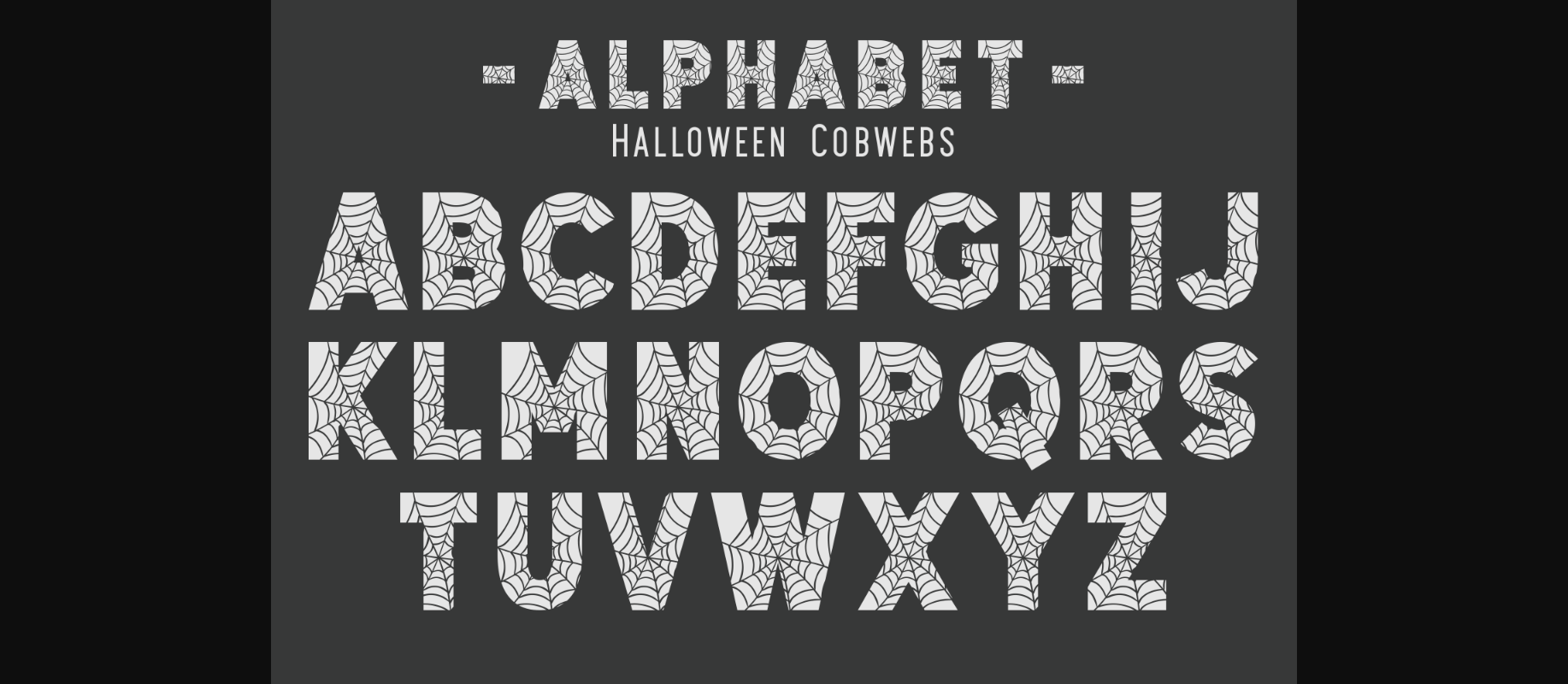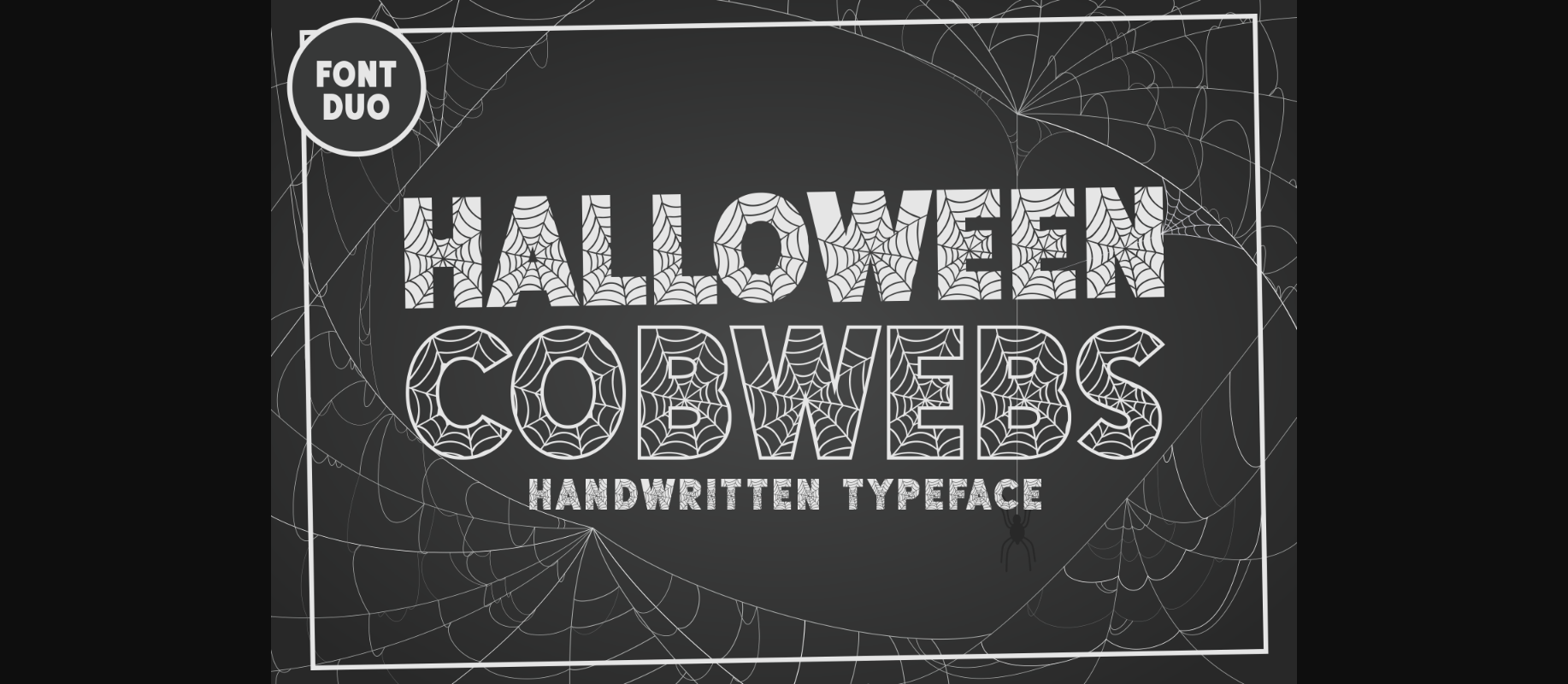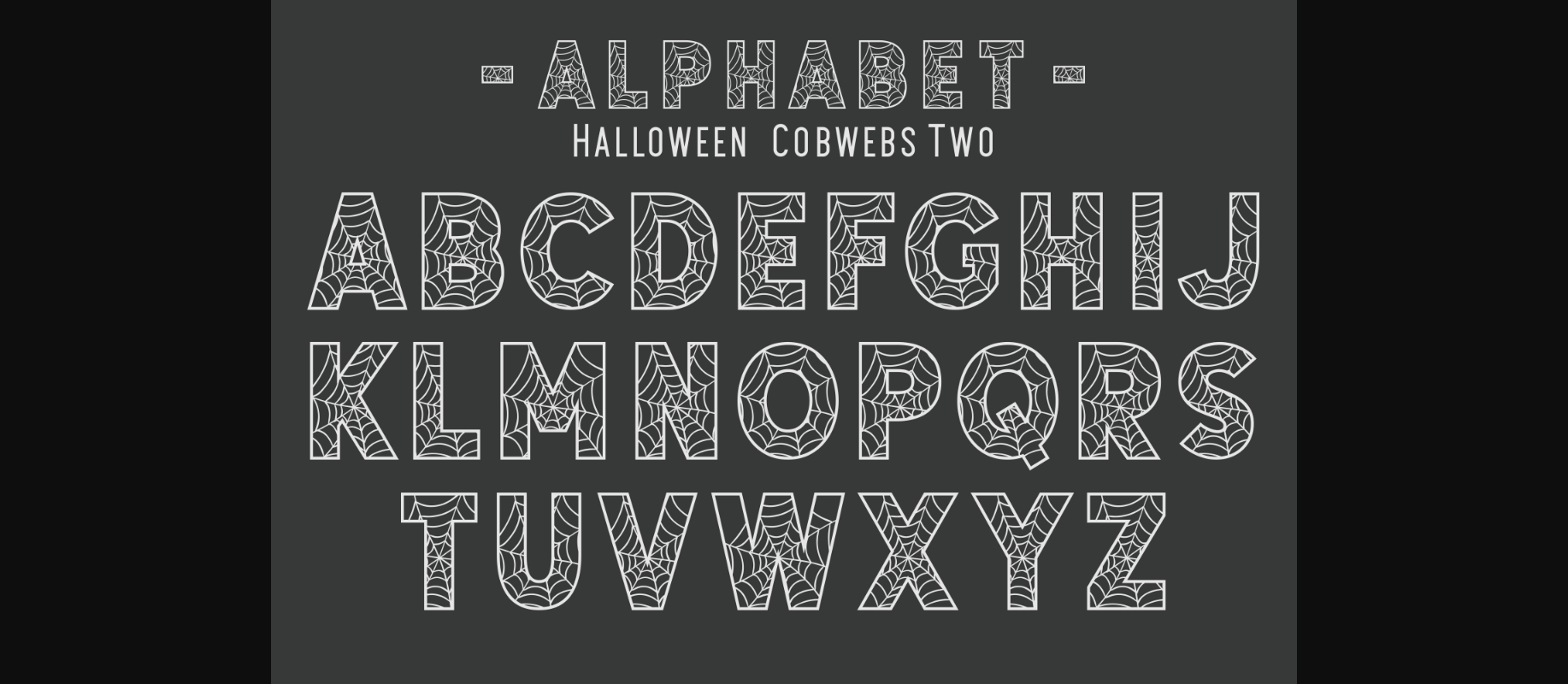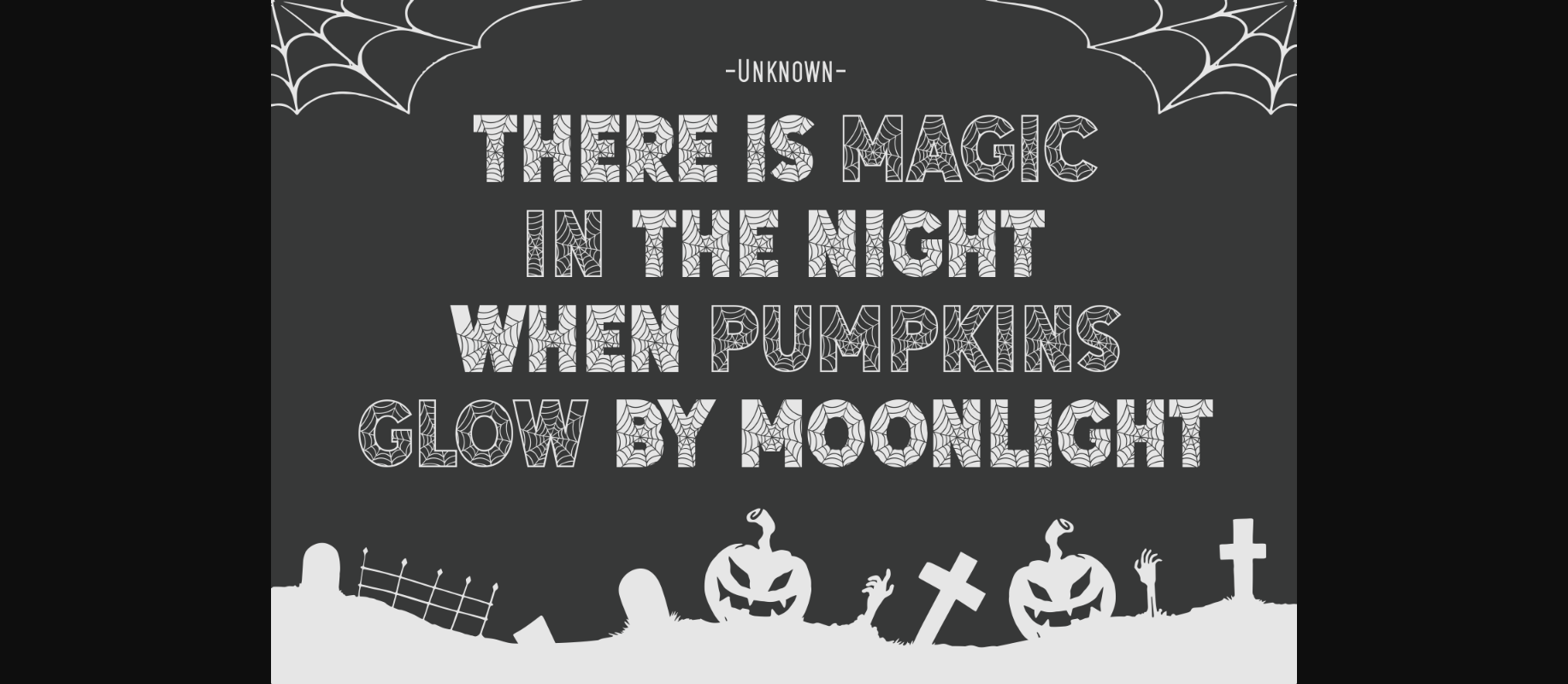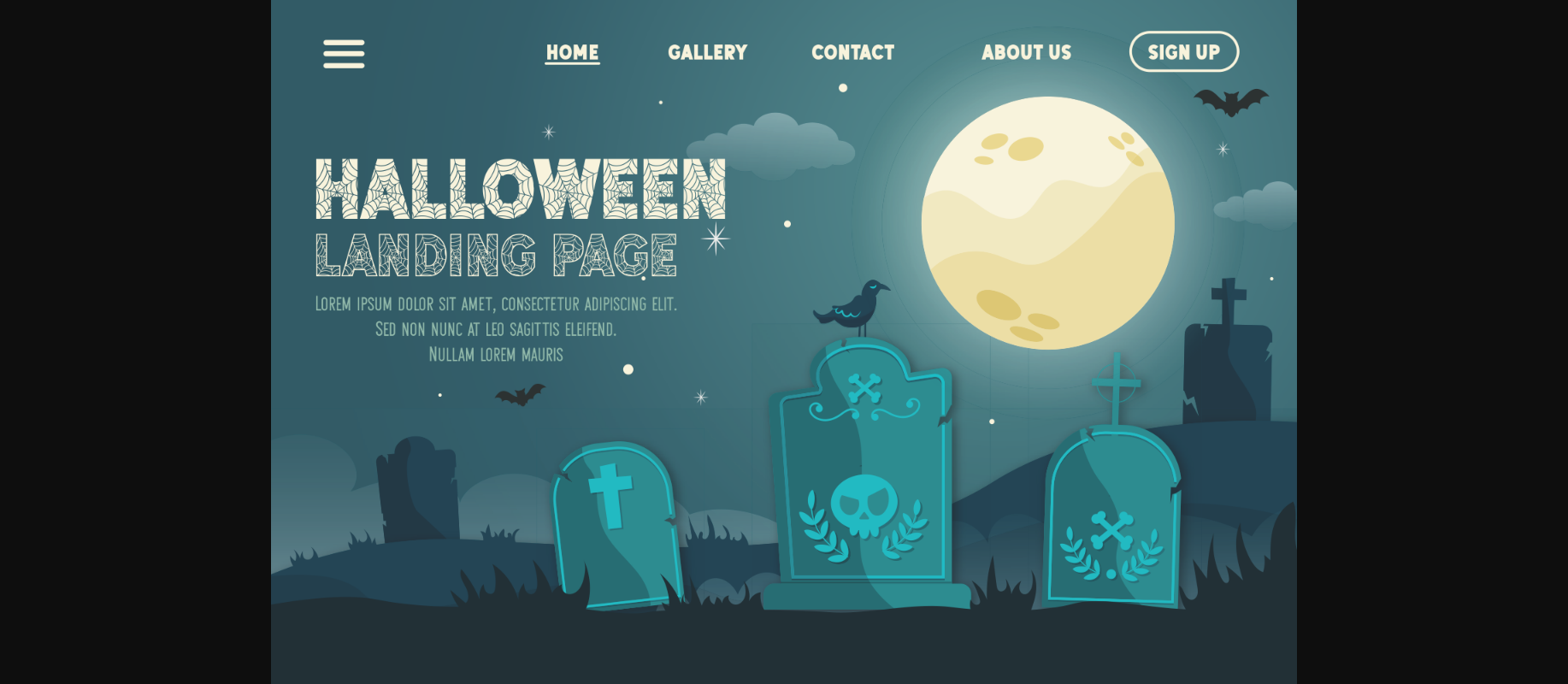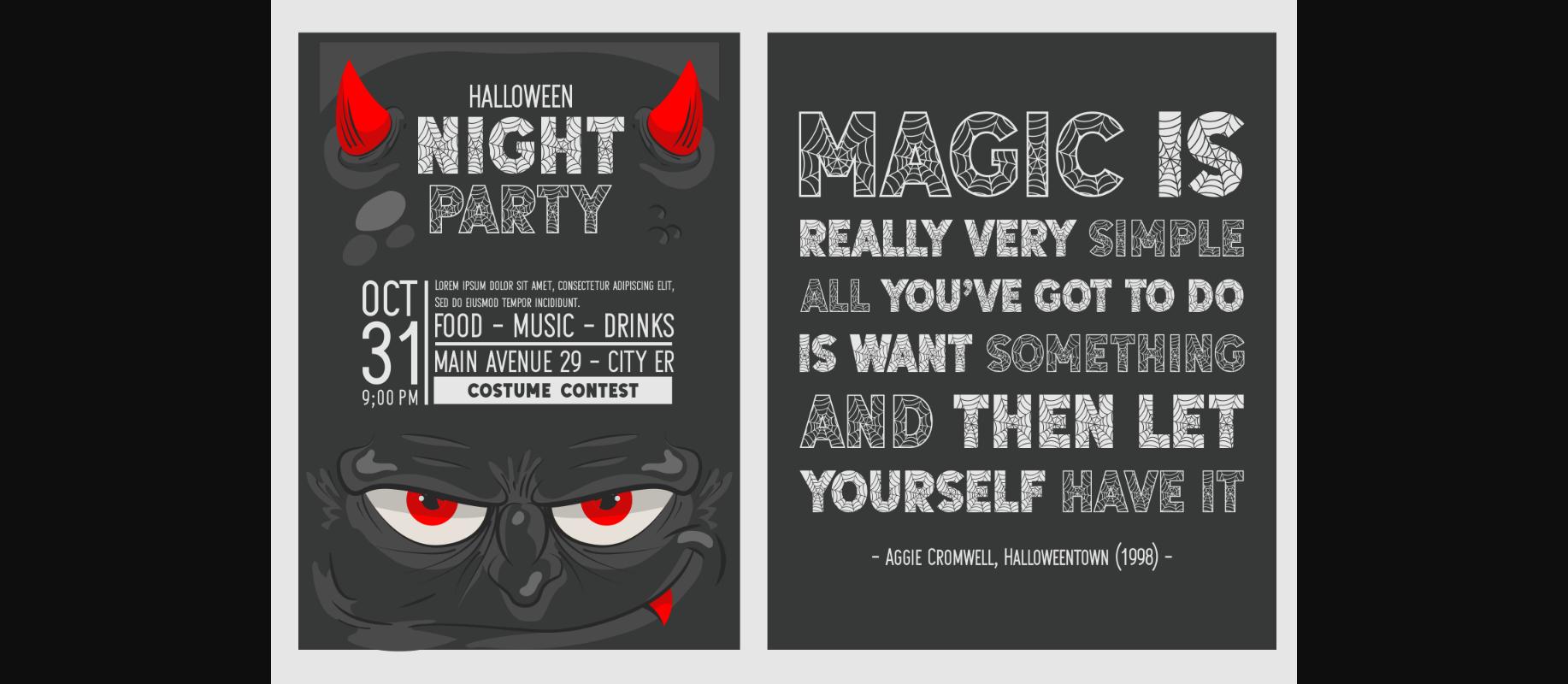
HomeDecorative FontsHalloween Cobwebs Font Decorative Fonts Halloween Cobwebs Font FacebookXPinterestWhatsApp 1 of 8 ... Halloween Cobwebs Font Poster 2... Halloween Cobwebs Font Poster 3... Halloween Cobwebs Font Poster 4... Halloween Cobwebs Font Poster 5... Halloween Cobwebs Font Poster 6... Halloween Cobwebs Font Poster 7... Halloween Cobwebs Font Poster 8... About Halloween Cobwebs Font Halloween Cobwebs is a cool, bold and spooky decorative font. Whatever the topic, this font will be a wonderful asset to your font library, as it has the potential to enhance any creation. DOWNLOAD NOW People also explored Park Twokey Month Font Wonderful Wostered Font Voltras Font Moving Shadow Font Anyway Font Salmah Font Martin Font Montana Elladinor Font Christmas Wish Font 486 0 TagsHalloween Cobwebs Font Previous articlePumpkin FontNext articleTogle Font LEAVE A REPLY Cancel reply Comment: Please enter your comment! Name:* Please enter your name here Email:* You have entered an incorrect email address! Please enter your email address here Website: Save my name, email, and website in this browser for the next time I comment. Personal Use Free Geracella Personal Use Free Read more about this font Happy Rabbit Personal Use Free Read more about this font Lost Treasure Personal Use Free Read more about this font Messy Personal Use Free Read more about this font BLOG How to Cut Any Font on Cricut: Convert a Font to SVG (Free) Turn any font into a clean SVG so it cuts crisp on Cricut - a quick 3-step workflow using a free font-to-SVG tool. Modern Sans-Serif Fonts That Brands Love in 2025 Elegant Wedding Invitation Fonts – Handwritten & Script Fonts Where to Buy American Fonts Online in 2024